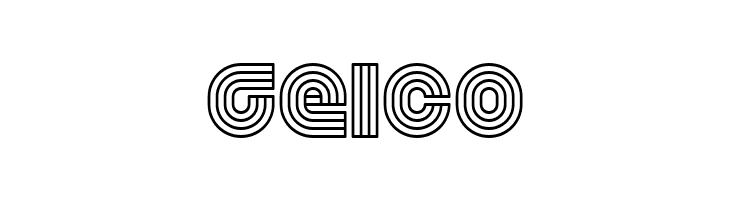
HEXOTO Font
A geometric and abstract font with bold, circular shapes and strategic negative space.
A geometric, abstract font with bold, circular outlines and symmetrical design.